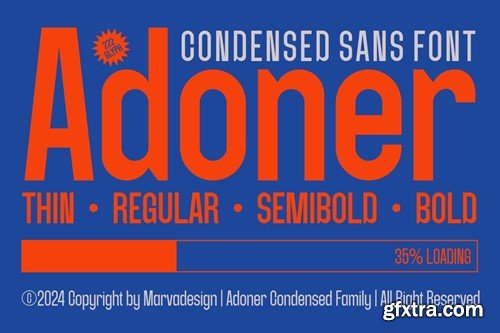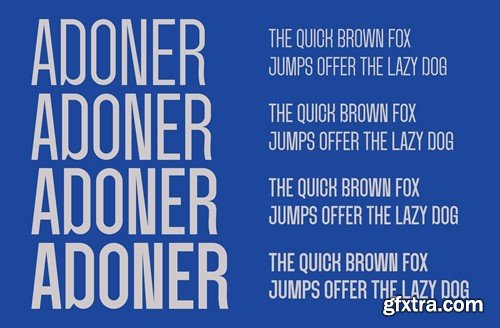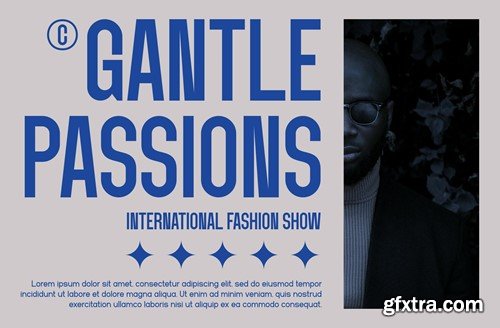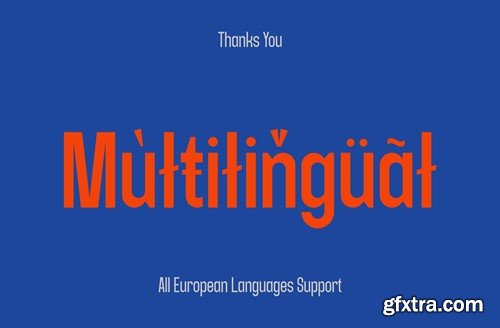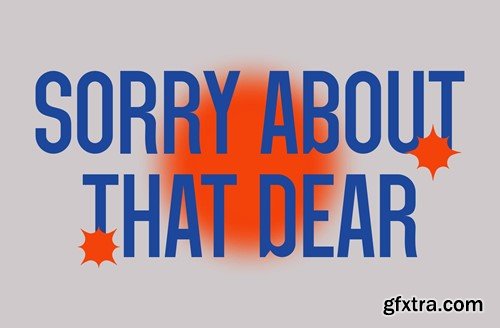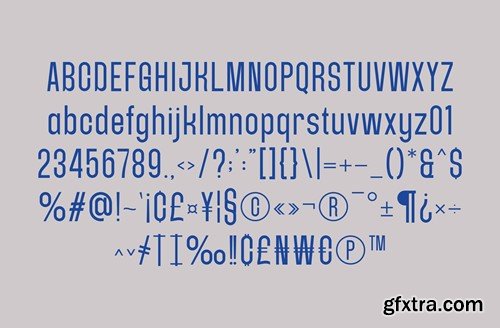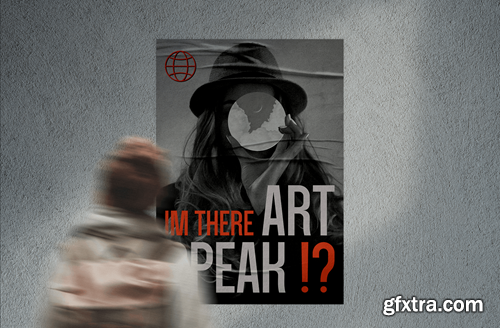
阿德纳 - 一家 condensed sans 字体 TQJ9VD7
Introducing Adoner Condensed - the epitome of sleek, contemporary design in the world of typography. With its compact form and sans serif style, Adoner Condensed exudes confidence and sophistication, making it the perfect choice to attract attention and bring a modern feel to your designs. Suitable for "Titles With its boldness and clarity of character, Adoner Condensed provides a powerful presence in every title. From the cover page to the subhead, this font ensures your message is conveyed boldly and effectively" "Websites: Optimum readability and modern aesthetics make Adoner Condensed an ideal choice for website designs. Use this font in navigation, headings, or other large text to enhance branding and grab visitors' attention" "Posters: For stunning and effective posters, nothing beats the clarity and visual power of Condensed Adoner. With the ability to display large text in limited space, this font ensures your message is visible even from a distance" "Magazines: From cover layouts to editorial articles, Adoner Condensed brings an unmatched modern touch to your magazine designs. The compactness of the characters and the clarity of the lines make them perfect for capturing the reader's attention and creating a consistent professional impression" availlable